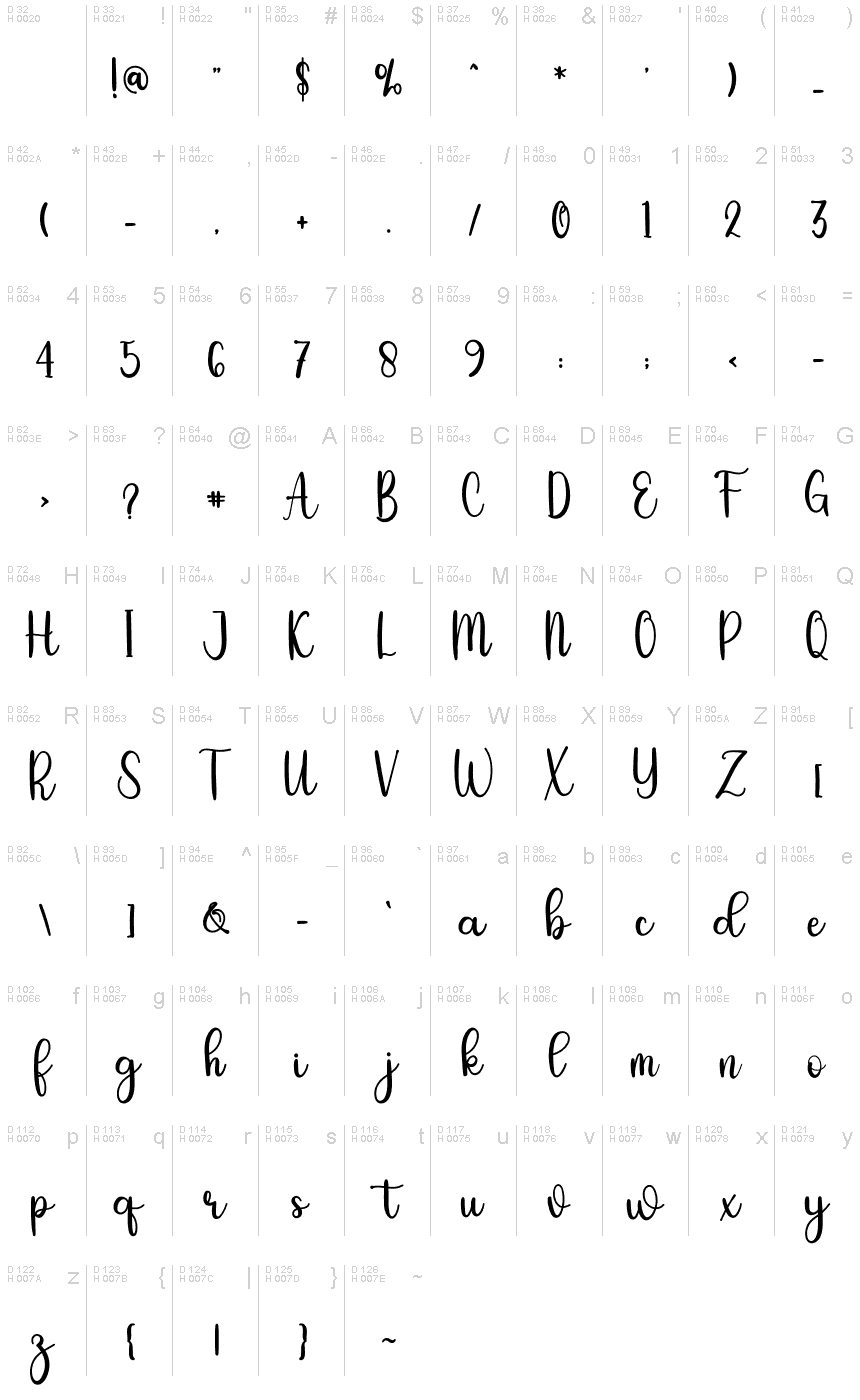
Rainbow In Mandala
Rainbow In Mandala is a beautiful calligraphy font designed by FreshtypeINK with a narrow width and light weight. It is perfect for creating eye-catching and unique invitations, posters, logos, greeting cards, quotes, and more!